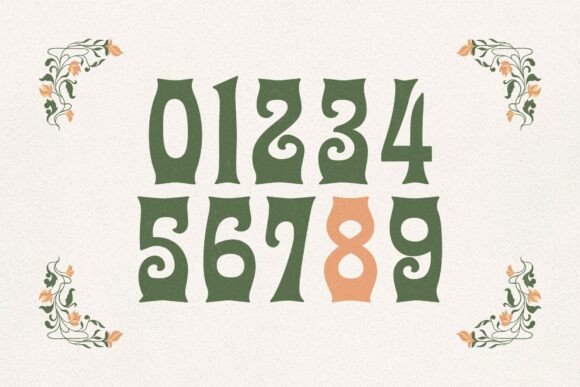
Fleur Royale Font: A Timeless Art Nouveau Masterpiece
Step into a world where art blossoms and time stands still. Fleur Royale is a breathtaking Art Nouveau typeface that captures the graceful spirit of the Belle Époque with stunning authenticity. Inspired by the flowing lines, ornate details, and floral motifs of the late 19th and early 20th centuries, this font is a love letter to a golden age of design.
The Art Nouveau Movement: A Golden Age of Design
The Art Nouveau movement, which emerged in the late 19th century, was a revolutionary design era that transformed the world of art, architecture, and typography. Characterized by its sinuous lines, organic forms, and floral motifs, Art Nouveau was a departure from the traditional and rigid design principles of the time. The movement’s emphasis on beauty, elegance, and craftsmanship led to the creation of some of the most iconic and enduring designs in history.
Art Nouveau’s impact on typography was significant, with designers like Alphonse Mucha, Gustav Klimt, and Henri de Toulouse-Lautrec creating fonts that embodied the movement’s principles. These typefaces were not just meant to convey information but to evoke emotions, create moods, and add an extra layer of meaning to the text.
Fleur Royale: A Modern Take on Art Nouveau Typography
Fleur Royale is a modern typeface that draws inspiration from the Art Nouveau movement. Every curve, loop, and flourish in this font has been meticulously crafted to reflect the romantic and organic beauty that defined the era. The font’s creator has successfully distilled the essence of Art Nouveau into a typeface that is both authentic and innovative.
Fleur Royale’s design is characterized by its flowing lines, intricate details, and floral motifs. The font’s letters are adorned with delicate swashes, curls, and twirls, which add to its elegance and sophistication. The typeface’s curves are smooth and fluid, evoking the sinuous lines of Art Nouveau’s most iconic designs.
Timeless Versatility: Fleur Royale in Modern Design
Despite its historical roots, Fleur Royale possesses a timeless versatility that makes it suitable for a wide range of design applications. This font is not just a nostalgic nod to the past but a versatile tool that can be used in contemporary branding, editorial layouts, wedding invitations, packaging, and luxury design.
Fleur Royale’s ability to adapt to different design contexts is a testament to its enduring beauty and elegance. Whether you’re crafting vintage-inspired visuals or giving a modern project a touch of nostalgic sophistication, this font delivers drama, grace, and grandeur in equal measure.
Using Fleur Royale: Tips and Inspiration
Using Fleur Royale is like opening a velvet-curtained doorway into another era, one filled with elegance, artistry, and opulent charm. Here are some tips and inspiration for incorporating this beautiful font into your design projects:
- Vintage-inspired visuals: Fleur Royale is perfect for creating vintage-inspired visuals, such as posters, advertisements, and packaging. Use the font to evoke a sense of nostalgia and timelessness.
- Wedding invitations: The font’s elegance and sophistication make it ideal for wedding invitations, ceremony programs, and wedding stationery.
- Luxury branding: Fleur Royale’s luxurious feel makes it suitable for high-end branding, packaging, and advertising.
- Editorial layouts: Use the font to add a touch of elegance and sophistication to editorial layouts, such as magazine articles, blog posts, and book titles.
The Benefits of Using Fleur Royale
Fleur Royale offers several benefits to designers, including:
- Unique and distinctive: The font’s Art Nouveau inspiration sets it apart from more traditional typefaces, making it a great choice for designers looking to create unique and distinctive designs.
- Elegant and sophisticated: Fleur Royale’s elegance and sophistication make it perfect for high-end branding, luxury packaging, and editorial layouts.
- Versatile: The font’s versatility makes it suitable for a wide range of design applications, from vintage-inspired visuals to modern branding and advertising.
Fleur Royale is a breathtaking Art Nouveau typeface that captures the essence of a golden age of design. With its flowing lines, intricate details, and floral motifs, this font is a love letter to the Art Nouveau movement. Its timeless versatility makes it suitable for a wide range of design applications, from vintage-inspired visuals to modern branding and advertising. Let your typography bloom with the eternal beauty of Fleur Royale.
- What is Fleur Royale? Fleur Royale is a modern Art Nouveau typeface inspired by the flowing lines, ornate details, and floral motifs of the late 19th and early 20th centuries.
- What design applications is Fleur Royale suitable for? Fleur Royale is suitable for a wide range of design applications, including vintage-inspired visuals, wedding invitations, luxury branding, editorial layouts, and packaging.
- Is Fleur Royale easy to use? Yes, Fleur Royale is designed to be easy to use and versatile, making it perfect for designers of all levels.